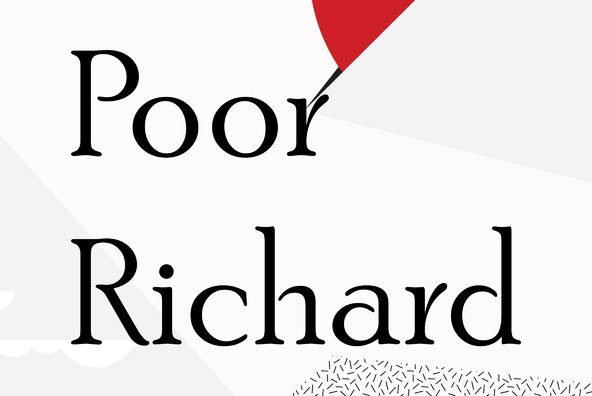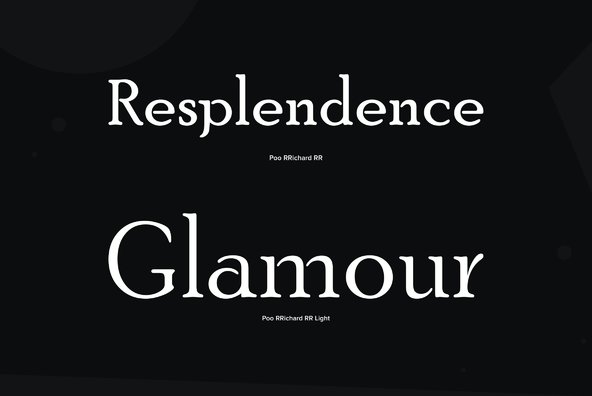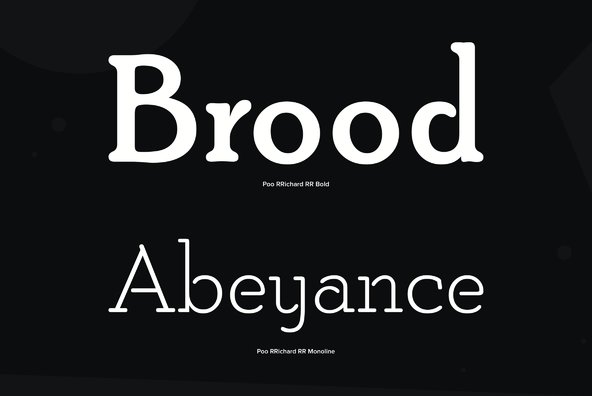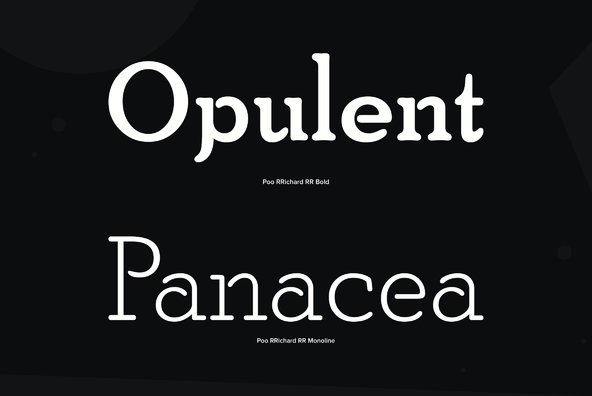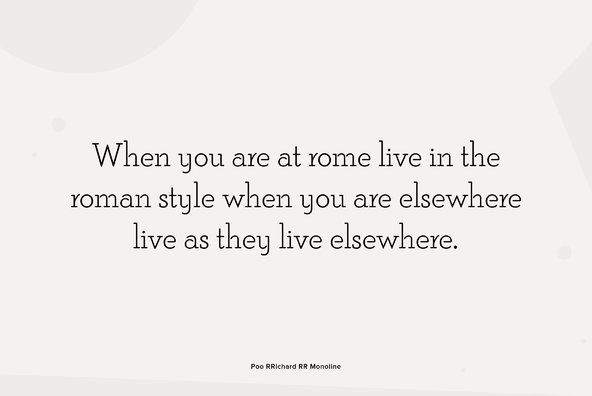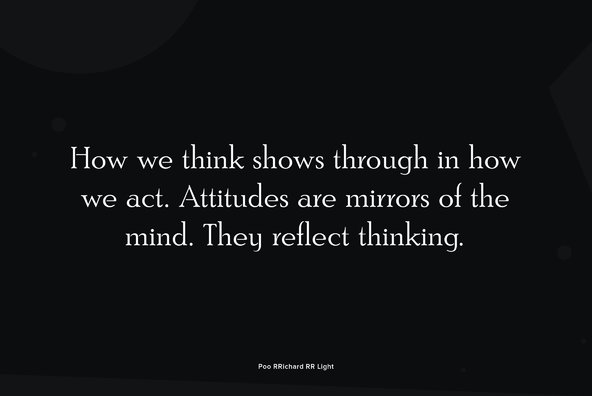
Poor Richard
Designed by Paul Hickson. Based on the Keystone Type Foundry design, circa 1919. The l/c 'g' appears as an alternate character in our font.